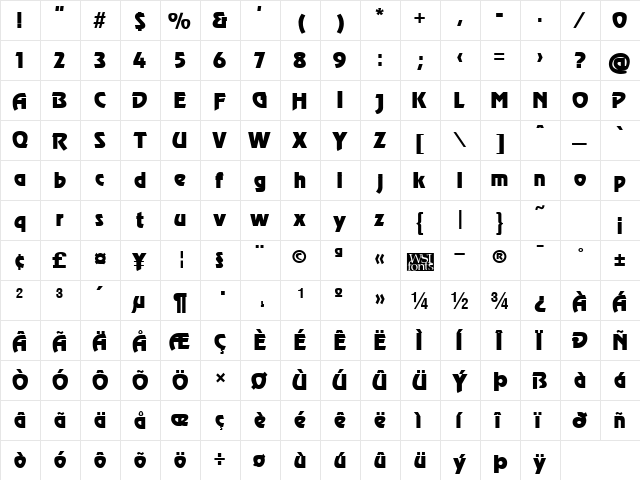
Revel Regular Font Preview
Revel Regular
Revel Regular Font Details
Design Context for Revel Typeface
Revel takes a measured approach to typography — its balanced proportions and neutral character make it a reliable workhorse for both digital and print work.